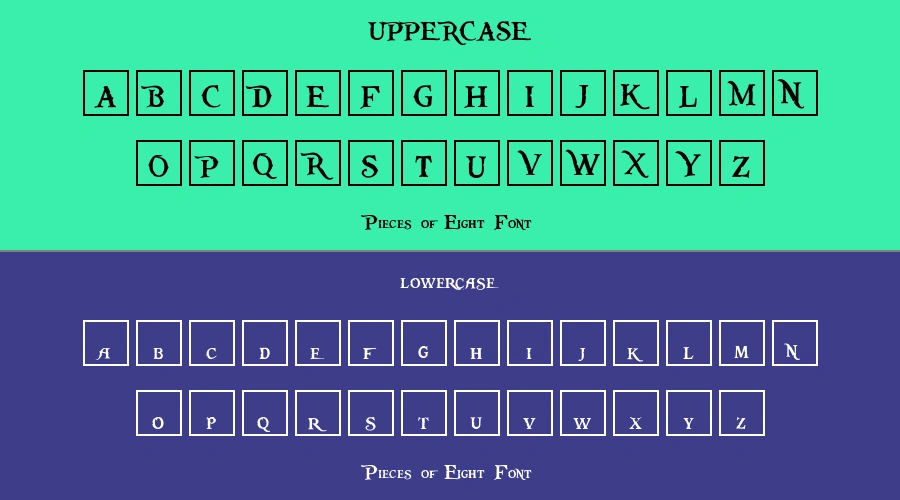
About Pieces of Eight Font
Pieces of Eight Font represents a sophisticated approach to type design, balancing geometric precision with aesthetic balance. Perfect for technical documentation, this font family showcases impressive durability and market relevance throughout its character set. Designers appreciate its versatility and reliability.
Designers will appreciate nuanced touches including tapered strokes and historical accuracy, adding sophistication to any project. These features become apparent in advertisements, where versatility matters most. The careful treatment of stem weight and market positioning ensures optimal performance.